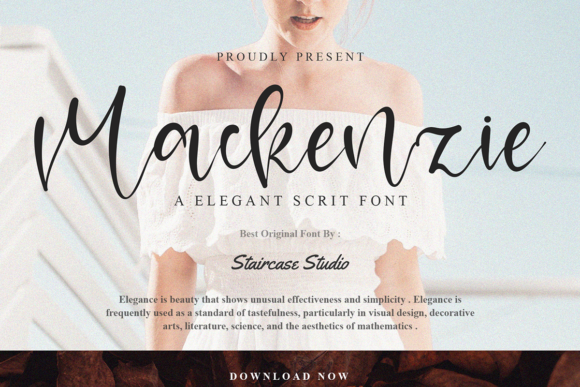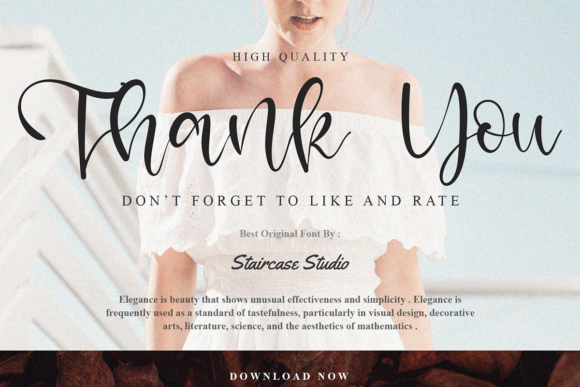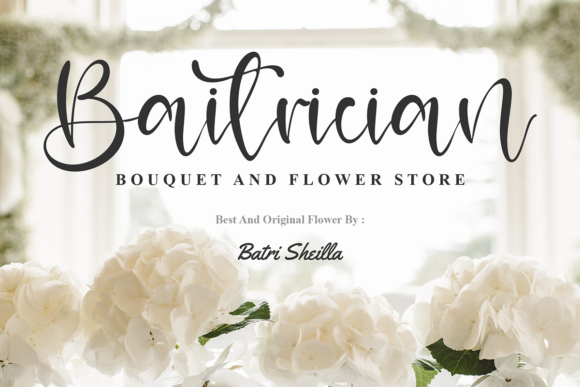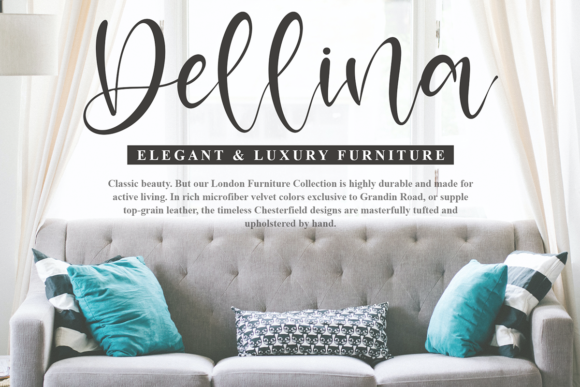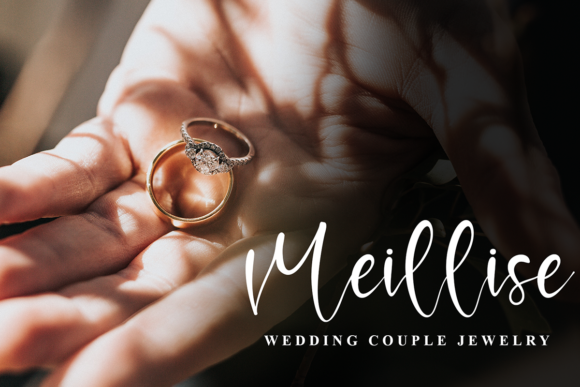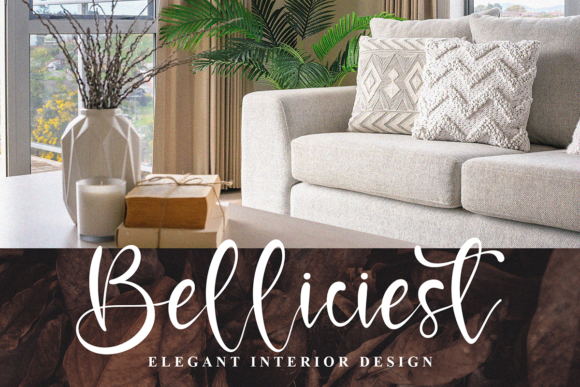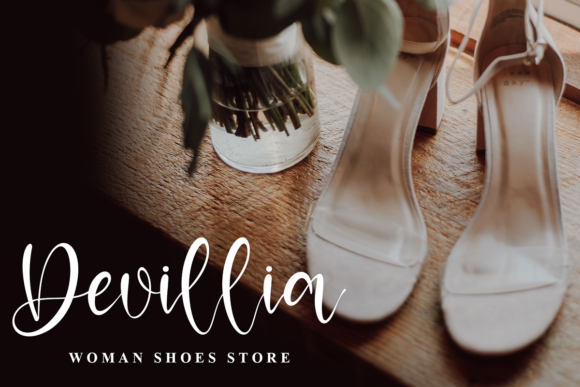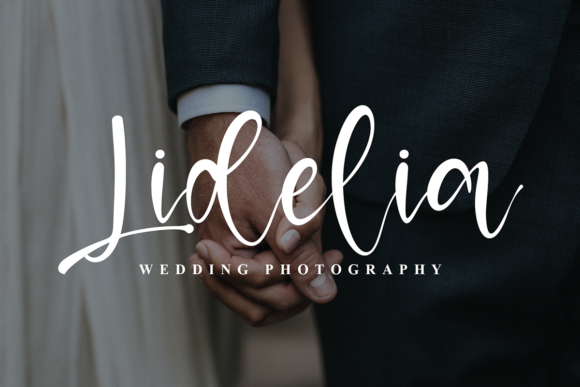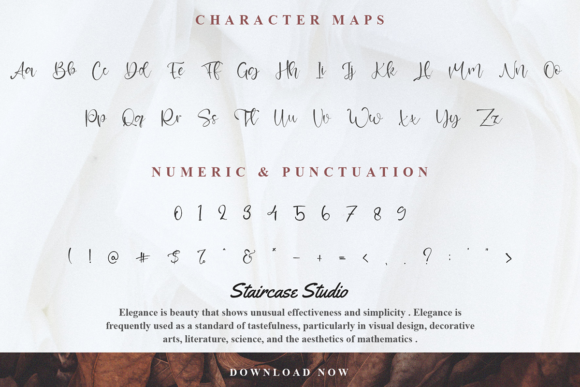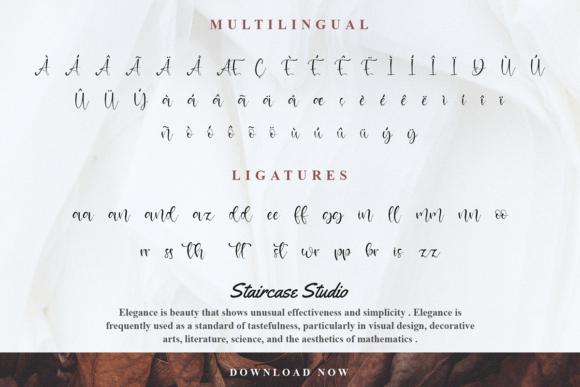
Mackenzie Font
About Mackenzie Font
Mackenzie is a beautiful and graceful script font. It has an ageless look that can be used for logos, branding, invitations, stationery, wedding designs, social media posts, and much more!